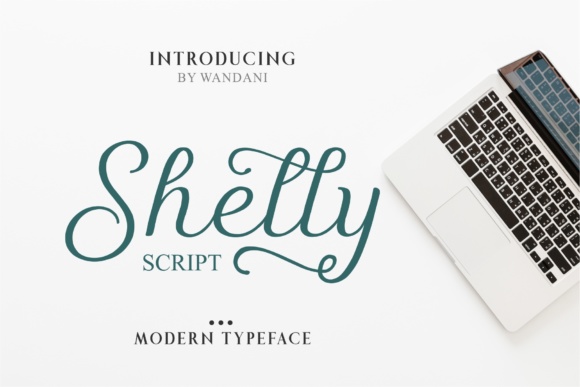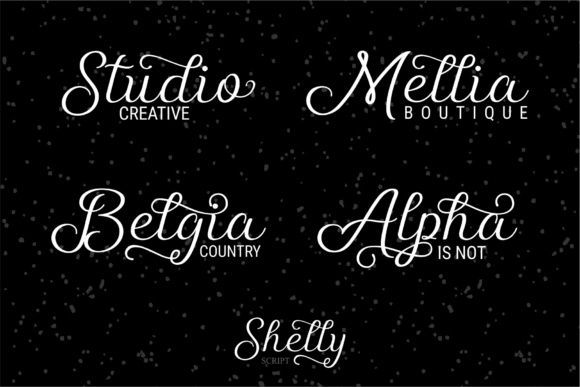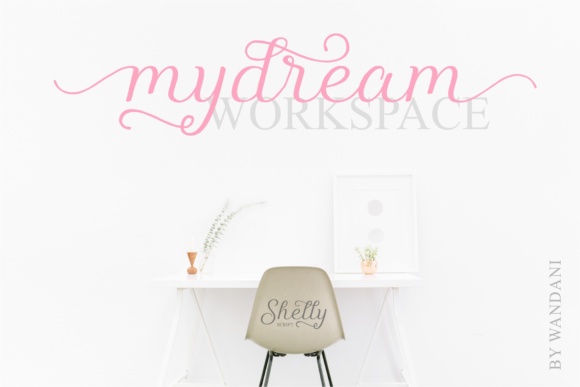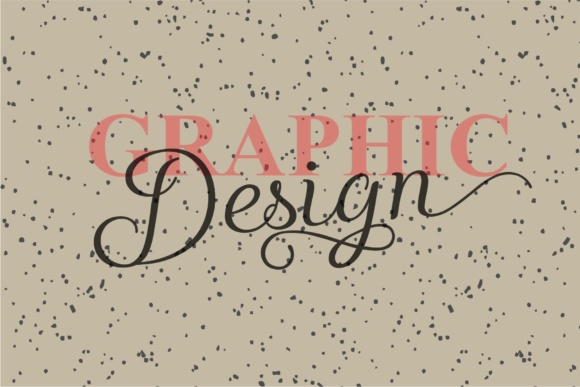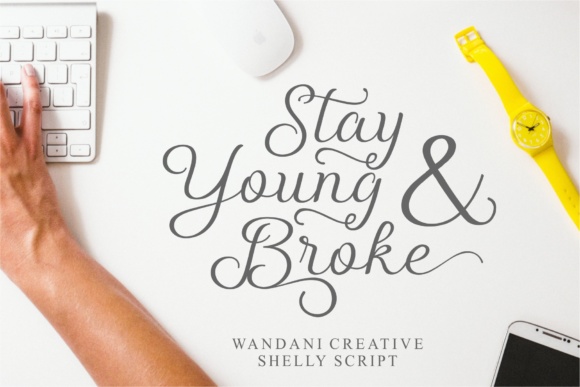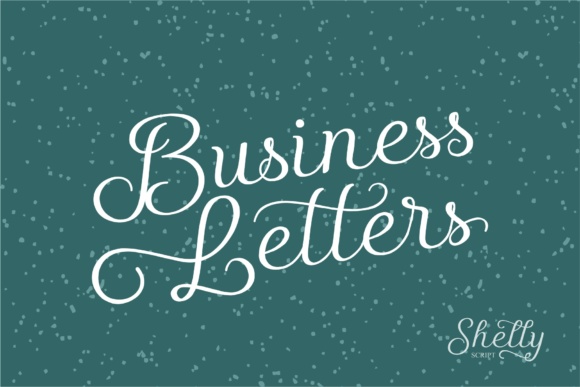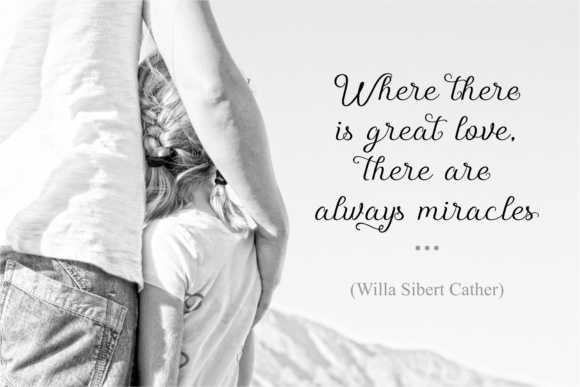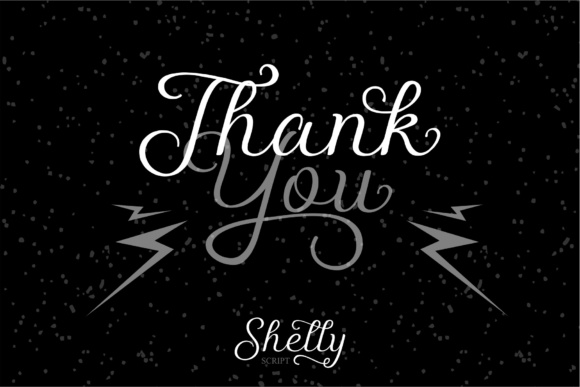
Shelly Script Font
About Shelly Script Font
Shelly Script is a fresh & modern script with a handmade calligraphy style. Shelly features decorative characters and a dancing baseline!
Shelly works great for many different uses such as invitations, greeting cards, branding materials, business cards, quotes & posters, lettering and much more.